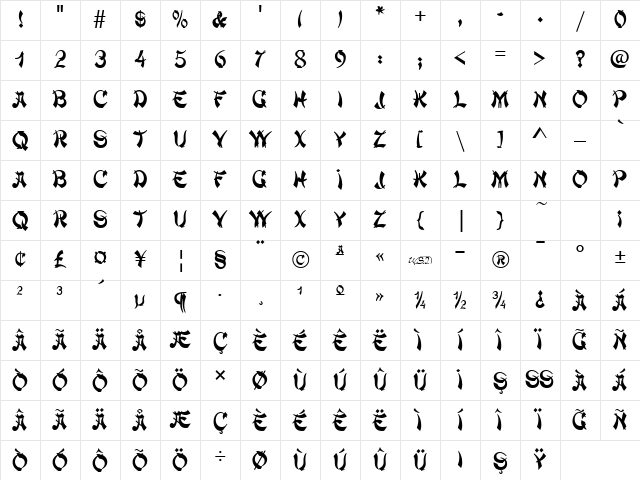
TR ChowMein Regular Free Font
TR ChowMein Regular
Design Context for TR ChowMein
TR ChowMein is a composed and adaptable typeface that performs quietly and consistently across a wide range of design contexts.